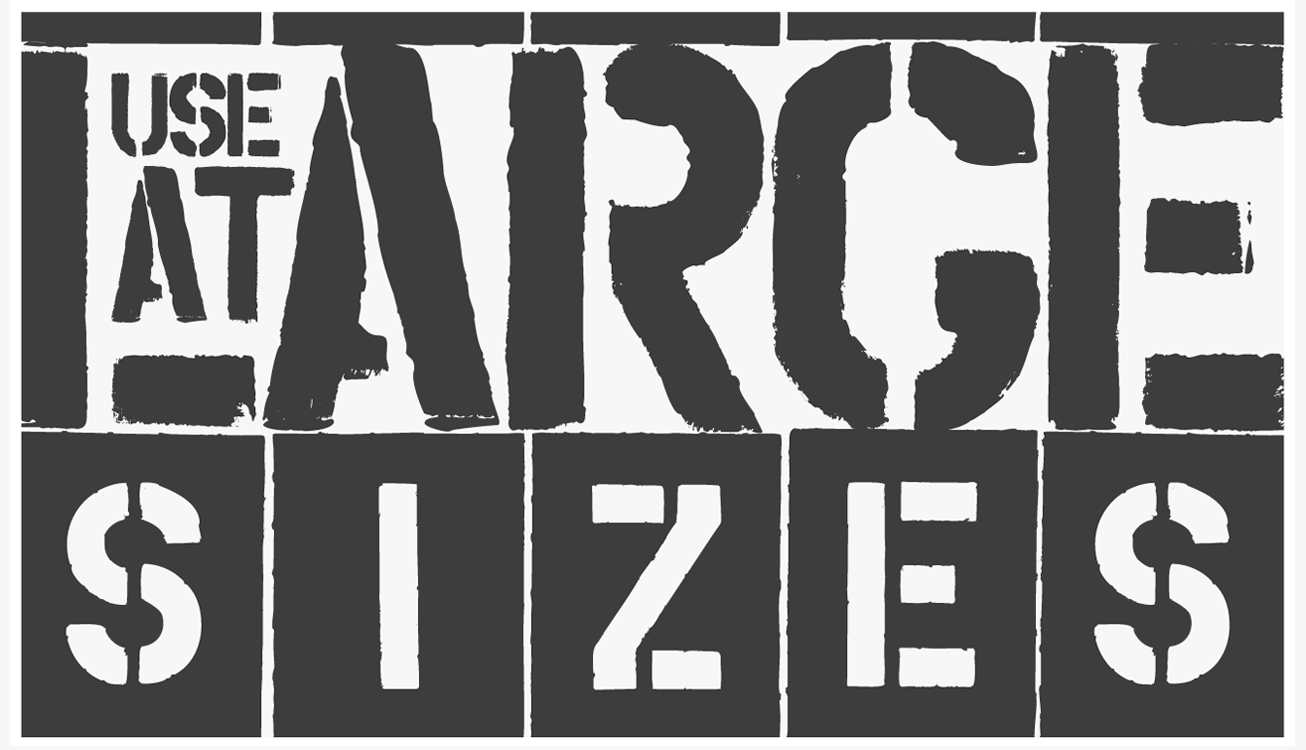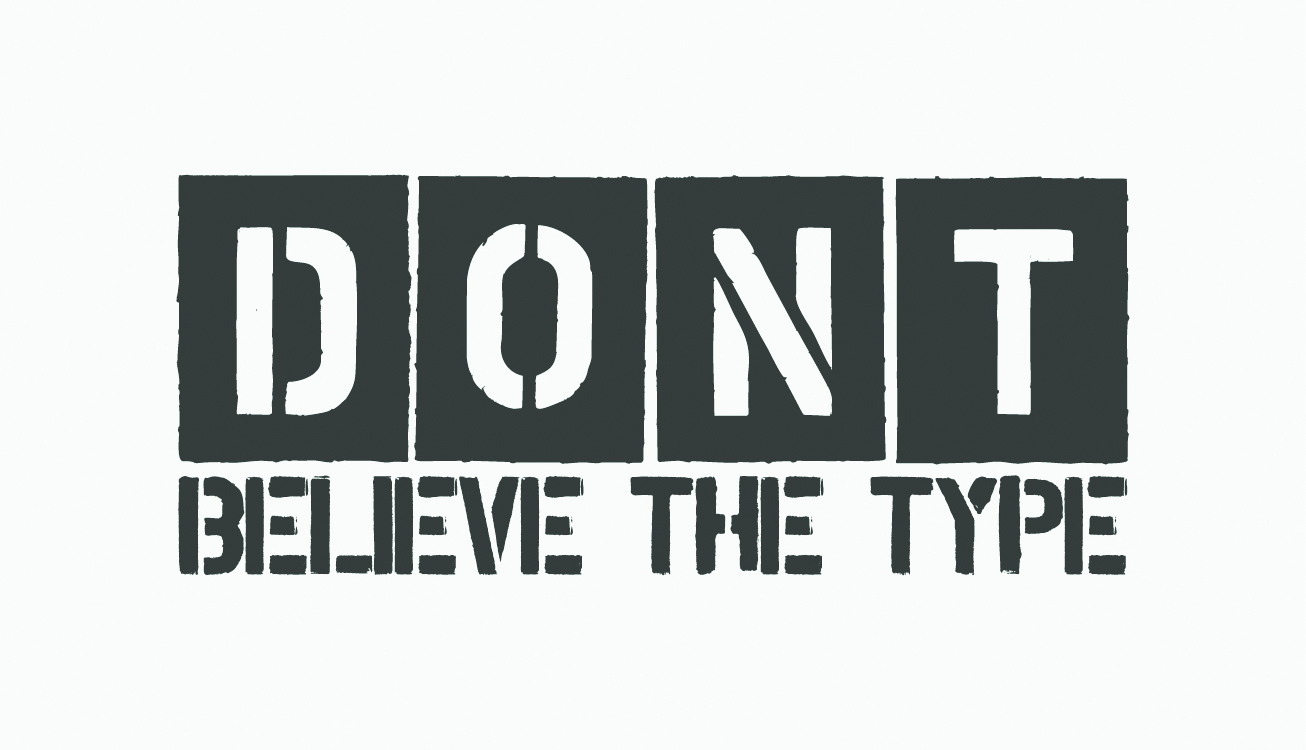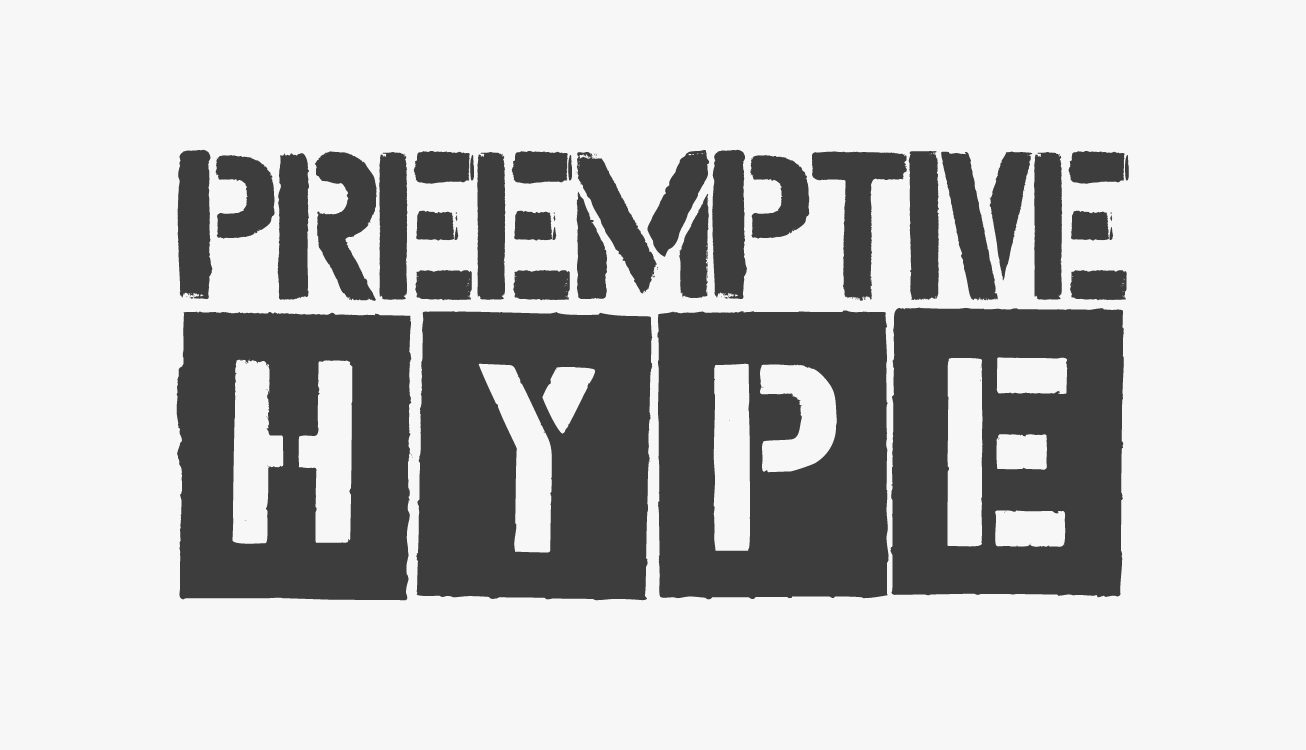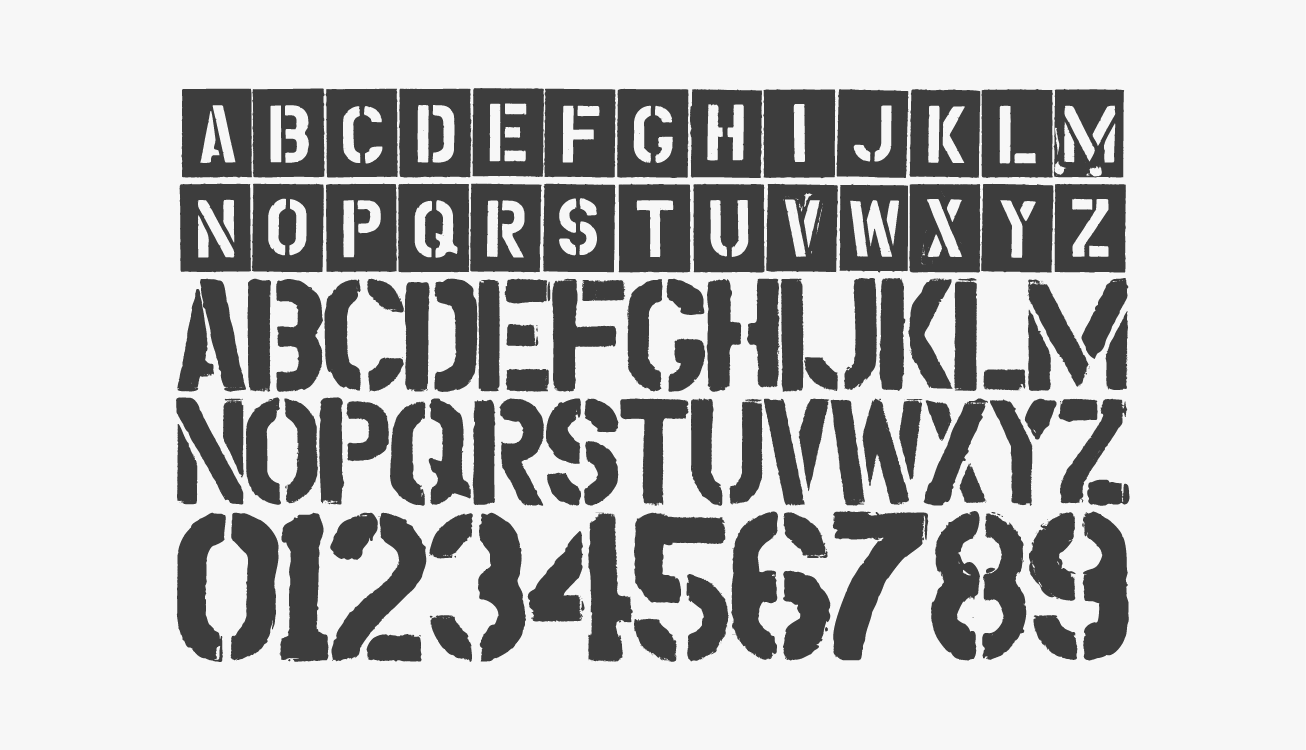
Stencil One Typeface
If you are looking for a font stencil, this is a best choice. Introducing Stencil One Typeface! Stencil One has you covered. It’s subtle yet finely detailed design is suitable for a wide range of traditional and nontraditional applications. Stencil One Font is suitable for branding, stationery, blog design, custom art, custom stamps, custom embossers, or any design purpose.